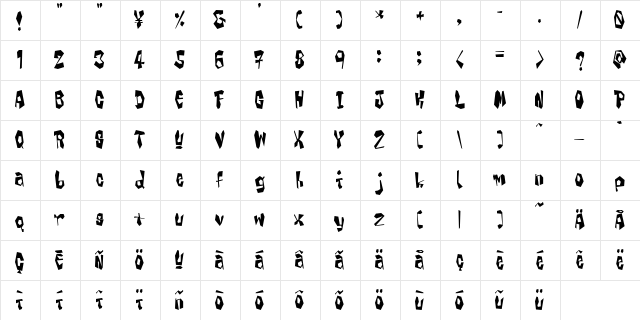
shout Regular Font Preview
shout Regular
Design Context for shout Typeface
shout is a composed and adaptable typeface that performs quietly and consistently across a wide range of design contexts.